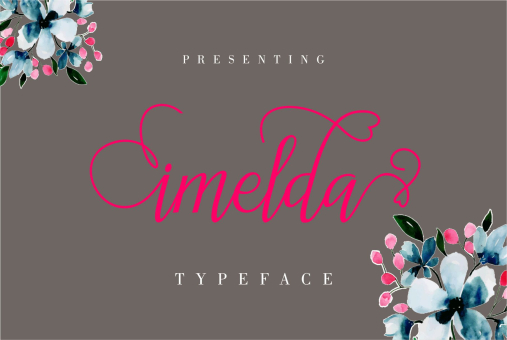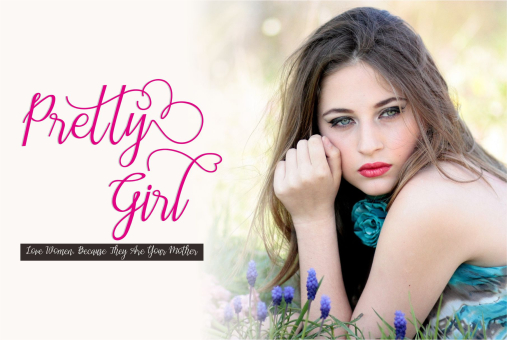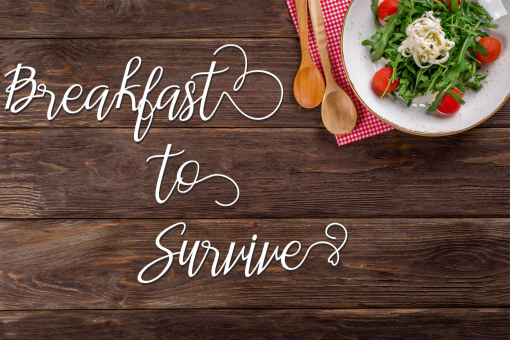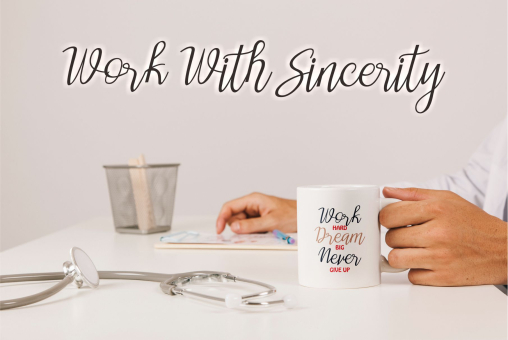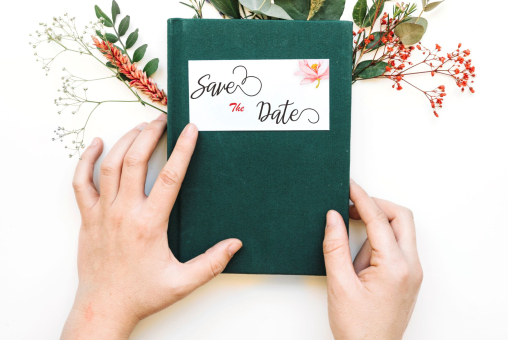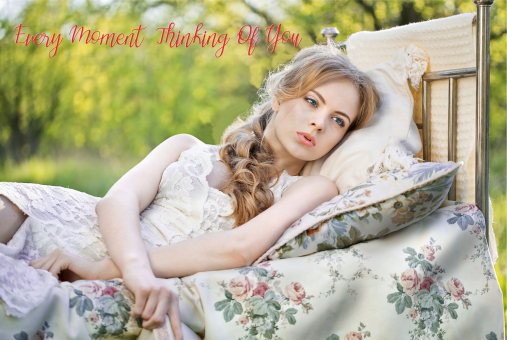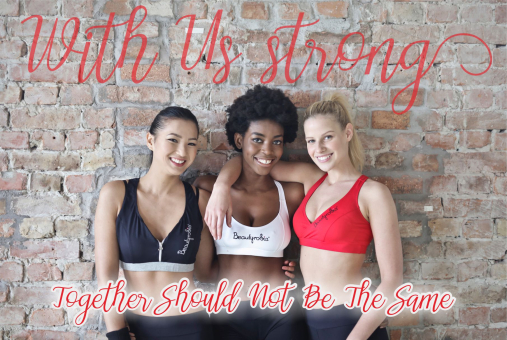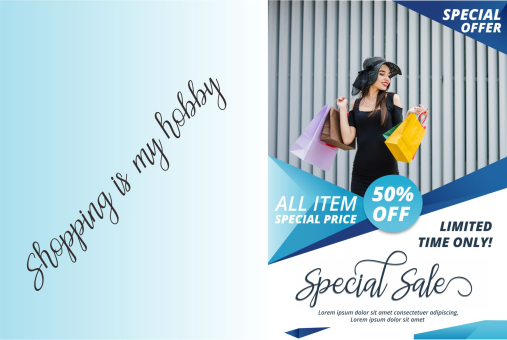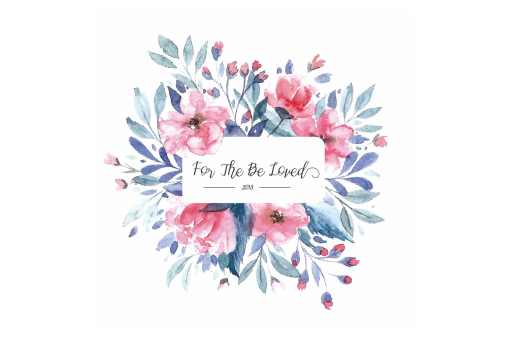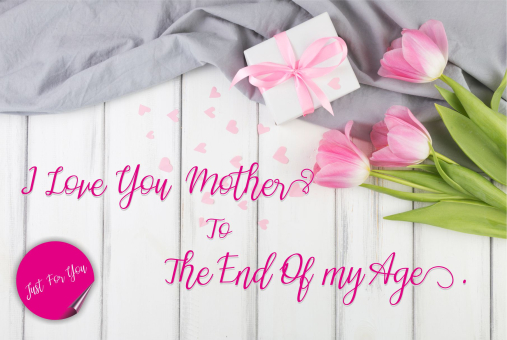
Imelda
imelda is a modern hand-based typography, This font is made up of irregularly flowing letters, both between top-down and with subsequent letters, which makes it suitable for Logotype, posters, businness cards, merchandise, wedding invitations, greeting cards, banners blogs, clothing, water-based paint designs / prints, correspondence, quotes and more!